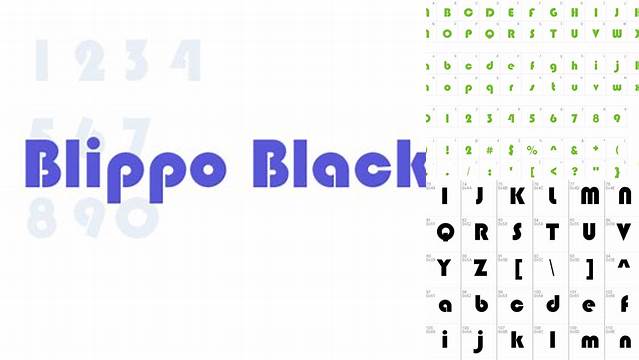
Hey guys! Are you on the hunt for a cool, retro font to spice up your designs? Look no further! The Blippo font family is a fantastic choice, known for its groovy, 1960s vibe. In this guide, we'll dive deep into everything you need to know about Blippo, including where to find a free download, its history, best uses, and more. Let's get started!
1. What is Blippo Font Family?
So, what exactly is the Blippo font family? Well, Blippo, often described as a bold and rounded sans-serif typeface, has a unique charm that makes it stand out. Designed by the legendary Joe Taylor in 1969 for FotoStar, this font immediately captured attention with its playful and retro aesthetic. The Blippo font family is characterized by its stout letterforms, smooth curves, and overall friendly appearance, reminiscent of the psychedelic era. If you're aiming to infuse your projects with a touch of vintage flair and a whole lot of personality, Blippo might just be your perfect match. It's not just a font; it's a statement. The initial release of Blippo quickly made waves in the design community, finding its way onto posters, album covers, and advertisements. Its rounded shapes and bold presence made it ideal for grabbing attention and conveying a sense of fun and informality. Today, Blippo remains a popular choice for designers looking to capture a retro vibe or add a playful touch to their work. The Blippo font family’s enduring appeal lies in its ability to evoke nostalgia while still feeling fresh and relevant. Its distinctive character ensures that it won't be easily overlooked, making it a go-to option for projects that need to make a strong impact. Whether you're working on a poster, a logo, or even website typography, Blippo can bring a unique and memorable quality to your designs. The versatility of Blippo also contributes to its widespread use. While it's particularly well-suited for retro-themed projects, it can also be incorporated into modern designs to create interesting juxtapositions and visual contrasts. The font's bold weight and clean lines make it legible across a variety of media, from print to digital, ensuring that your message is conveyed clearly and effectively. When considering using the Blippo font family, think about the message you want to convey and the overall tone of your project. Its playful nature makes it ideal for creative endeavors, but it can also add a touch of warmth and approachability to more corporate settings.
2. History and Origin of Blippo Font
Let's take a trip down memory lane, shall we? The history of the Blippo font is as fascinating as the typeface itself. Created in 1969 by the talented Joe Taylor, Blippo emerged during a time of significant cultural and artistic change. This was the era of psychedelic art, bell-bottom jeans, and a general sense of breaking away from tradition – and Blippo perfectly encapsulates that spirit. Joe Taylor, a relatively unsung hero in the world of typography, designed Blippo for FotoStar, a typesetting company known for its innovative font offerings. The late 1960s were a golden age for experimental typography, and Blippo was right there in the thick of it. Its rounded forms and bold appearance were a direct reflection of the era's design sensibilities. The font quickly gained popularity, appearing on everything from album covers to advertisements, solidifying its place in design history. Taylor's vision for Blippo was to create a typeface that was both attention-grabbing and approachable. He succeeded admirably, crafting a font that exudes a sense of fun and informality while remaining highly legible. The smooth curves and consistent weight of the letters give Blippo a harmonious feel, making it a pleasure to read and look at. Its initial release coincided with a surge in demand for fonts that could capture the energy and optimism of the time. Blippo's playful aesthetic made it a natural fit for the music scene, where it graced numerous album covers and concert posters. Its bold presence also made it an effective choice for advertising, helping brands to stand out in a crowded marketplace. The Blippo font family's continued popularity is a testament to its timeless design. Despite being created over half a century ago, it still resonates with designers and audiences alike. Its ability to evoke nostalgia while remaining relevant speaks to its enduring appeal. Whether you're a seasoned designer or just starting out, understanding the history of Blippo can give you a deeper appreciation for its unique qualities and how it can be used to enhance your own creative projects. The font's origins in the counterculture movement of the 1960s also provide valuable context for its design. Knowing that Blippo was created during a time of significant social and artistic change can help you to use it more effectively, ensuring that your designs are not only visually appealing but also culturally relevant.
3. Key Characteristics of Blippo Font
So, what makes Blippo, well, Blippo? Let's break down its key characteristics. First off, it’s a sans-serif font, meaning it doesn't have those little feet or serifs at the ends of the strokes. This gives it a clean and modern look, even though it's got that vintage vibe. The most noticeable feature is definitely its rounded letterforms. The curves are smooth and generous, giving the font a friendly and approachable feel. Think big, bouncy letters that are just begging to be noticed. Another key aspect is its bold weight. Blippo is a stout font, meaning the strokes are thick and heavy. This makes it super eye-catching and perfect for headlines or anywhere you need to make a statement. Plus, the letters are relatively short and wide, which adds to its playful and slightly quirky personality. The combination of these features – sans-serif structure, rounded forms, and bold weight – gives Blippo its unique character. It's a font that's hard to ignore, and it's got a lot of personality packed into each letter. When you use Blippo, you're not just choosing a font; you're choosing a mood. You're choosing to convey a sense of fun, nostalgia, and a bit of retro charm. The font's distinct characteristics also make it highly versatile. While it's particularly well-suited for vintage-themed designs, it can also be used in contemporary projects to add a touch of whimsy. Its bold presence makes it an excellent choice for branding, advertising, and editorial design. However, it's important to use Blippo judiciously. Its strong personality can be overwhelming if overused, so it's best to pair it with simpler fonts for body text. In addition to its visual characteristics, Blippo also has a certain emotional quality. Its rounded shapes and playful curves evoke feelings of warmth, friendliness, and nostalgia. This makes it a great choice for projects that aim to connect with audiences on an emotional level. Whether you're designing a logo, a website, or a poster, Blippo can help you to create a design that is both visually appealing and emotionally resonant. Understanding the key characteristics of Blippo is essential for using it effectively. By recognizing its unique qualities, you can make informed design choices that leverage its strengths and avoid its potential pitfalls.
4. Best Uses for Blippo Font Family
Okay, so you've got this awesome font, but where should you use it? The Blippo font family shines in projects that need a touch of retro flair or a playful vibe. Think vintage-inspired posters, album covers, and branding materials. It's fantastic for headlines and titles, where its bold presence can really grab attention. Imagine using Blippo for a 1960s-themed party invitation or a retro-style product label. It just screams cool, right? But don't think it's only for retro stuff. Blippo can also add a fun twist to more modern designs. Use it sparingly to create a unique contrast with cleaner, more minimalist fonts. It's all about balance, guys! For example, Blippo can be a great choice for website headers or call-to-action buttons, where you want to inject some personality and visual interest. Its bold weight ensures that it stands out, even on a busy page. In the world of branding, Blippo can be used to create a distinctive logo or visual identity. Its playful character makes it particularly well-suited for brands that want to convey a sense of fun, creativity, or nostalgia. Think about a retro-themed cafe or a children's clothing brand – Blippo could be a perfect fit. When using Blippo, it's important to consider the overall tone and message of your project. Its strong personality can be a great asset, but it can also be overwhelming if not used carefully. Pair it with simpler, more neutral fonts for body text to ensure readability and balance. Avoid using Blippo for lengthy paragraphs, as its bold weight can make it tiring to read in large blocks of text. Instead, focus on using it for headlines, titles, and other short pieces of text where you want to make a big impact. Blippo's versatility also extends to different types of media. It works well in both print and digital formats, making it a great choice for a wide range of projects. Whether you're designing a poster, a website, or a mobile app, Blippo can help you to create a design that is both visually appealing and effective. Ultimately, the best uses for Blippo font family are those that leverage its unique character and personality. By understanding its strengths and limitations, you can use it to create designs that are both memorable and impactful.